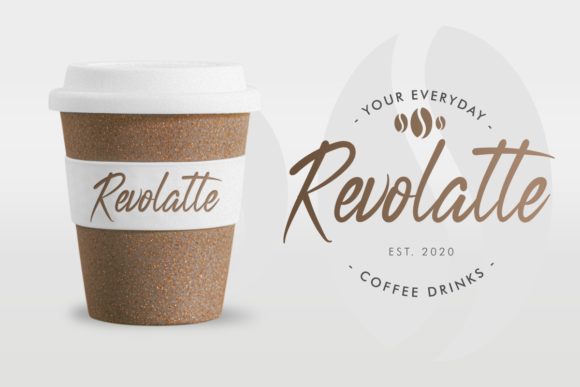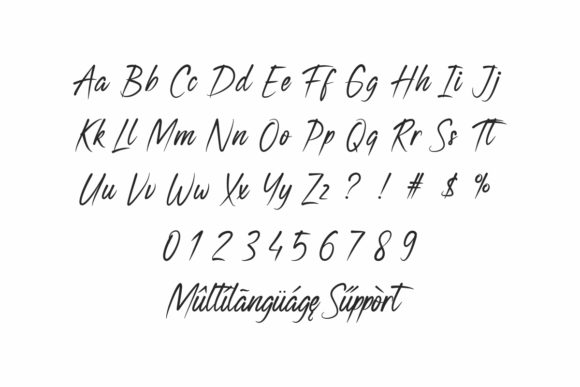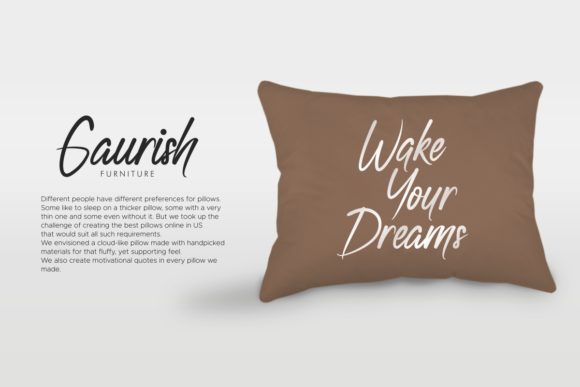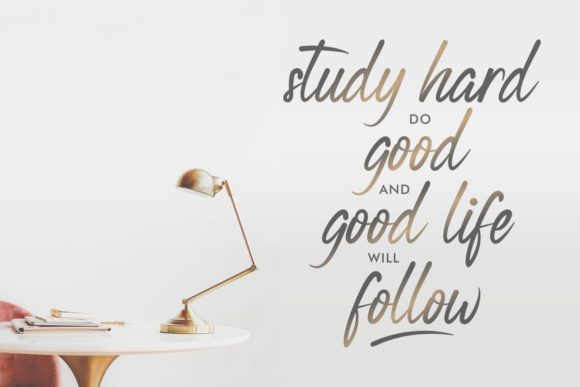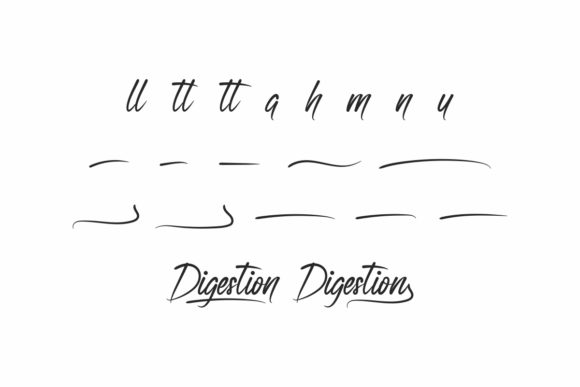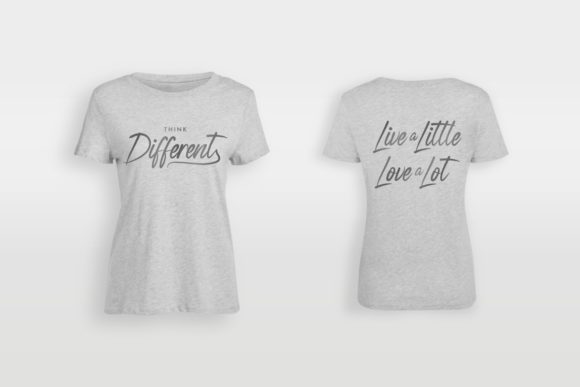
Introducing Digestion Font: A Delicate yet Relaxed Brush Hand Lettering Font
Are you a designer or crafter looking for a unique and versatile font to elevate your creative projects? Look no further than Digestion Font, a beautiful brush hand lettering font that combines delicate and relaxed styles. In this article, we’ll dive into the world of Digestion Font, exploring its features, benefits, and uses, as well as provide tips on how to make the most of this stunning font.
What is Digestion Font?
Digestion Font is a brush hand lettering font that boasts a delicate yet relaxed style, making it an excellent match for a wide range of designs, both formal and informal. Its unique blend of elegance and casualness allows it to adapt seamlessly to various creative projects, from wedding invitations and branding materials to social media graphics and craft projects.
Key Features of Digestion Font
- Delicate and Relaxed Style: Digestion Font’s distinctive style is characterized by its delicate and relaxed appearance, which adds a touch of sophistication and whimsy to any design.
- Brush Hand Lettering: This font features authentic brush hand lettering, giving it a personal and artistic feel that’s perfect for creative projects.
- Versatile: Digestion Font’s adaptability makes it an excellent choice for various design applications, from formal events to casual social media graphics.
Benefits of Using Digestion Font
So, why should designers and crafters choose Digestion Font for their projects? Here are just a few benefits:
- Adds a Personal Touch: Digestion Font’s hand-lettered style adds a personal and human touch to designs, setting them apart from more traditional fonts.
- Enhances Visual Appeal: The font’s delicate and relaxed style creates a visually appealing contrast that draws the viewer’s eye and adds interest to designs.
- Easy to Read: Despite its artistic nature, Digestion Font remains highly legible, making it suitable for use in a variety of contexts, from headings to body text.
Tips for Using Digestion Font
To get the most out of Digestion Font, here are some expert tips:
- Pair with Contrasting Fonts: Combine Digestion Font with contrasting fonts to create visual interest and add depth to designs.
- Experiment with Colors: Take advantage of Digestion Font’s versatility by experimenting with different colors and textures to add an extra layer of personality to designs.
- Use for Headings and Titles: Digestion Font’s unique style makes it perfect for use in headings and titles, where it can add a touch of elegance and sophistication.
Common Use Cases for Digestion Font
Digestion Font’s adaptability makes it suitable for a wide range of design applications, including:
- Wedding Invitations and Stationery: Add a touch of romance and whimsy to wedding invitations, save-the-dates, and other stationery with Digestion Font.
- Branding and Packaging: Use Digestion Font to create eye-catching branding materials, such as business cards, logos, and product packaging.
- Social Media Graphics: Elevate social media graphics, such as Instagram posts and Facebook banners, with Digestion Font’s unique style.
- Craft Projects: Incorporate Digestion Font into craft projects, such as handmade cards, scrapbooking, and DIY gifts.
In conclusion, Digestion Font is a versatile and beautiful brush hand lettering font that offers designers and crafters a unique and adaptable solution for their creative projects. With its delicate yet relaxed style, Digestion Font is perfect for a wide range of designs, from formal events to casual social media graphics. By incorporating Digestion Font into your design toolkit, you’ll be able to add a touch of elegance, whimsy, and personality to your projects, setting them apart from the rest.